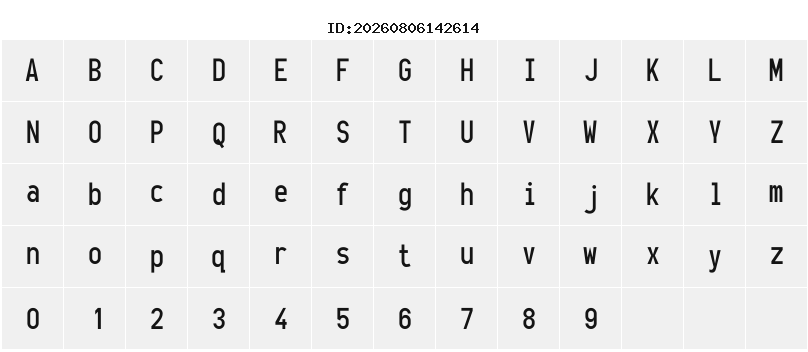
• Font Name: OneSlot
• Designer: Darren Rigby
• Description: A Bauhaus-y kind of monospace font based on my Meridiana.
About OneSlot.ttf
OneSlot.ttf is a modern, elegant sans-serif font designed for ultimate readability and visual harmony. Perfect for branding, headlines, web design, and print materials.